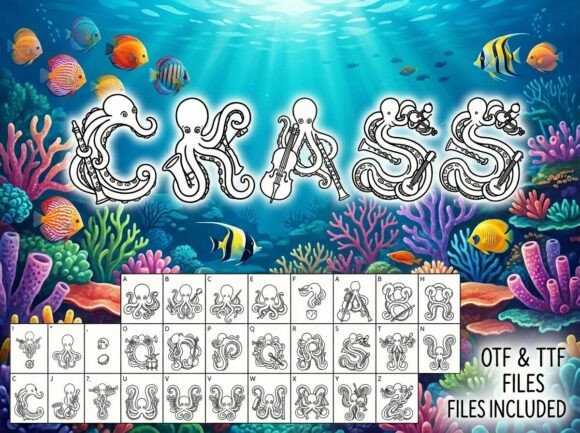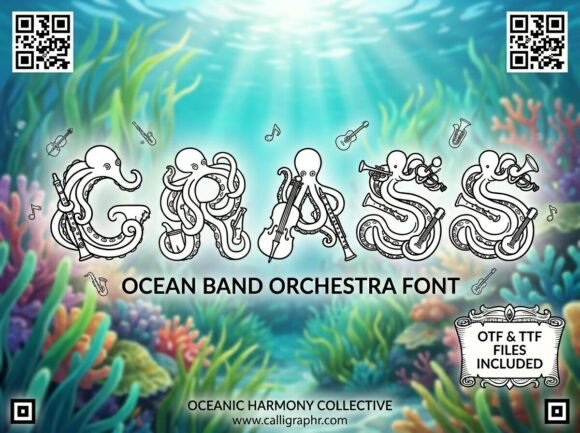
Conduct a Symphony of the Sea with Grass: The Whimsical Display Typeface
Imagine a font that combines the elegance of a musical symphony with the playfulness of a underwater world. Look no further than Grass, a bold and whimsical display typeface that captures the essence of a “musical-and-multitasking” soul. This unique font features hollow letterforms intricately integrated with hand-drawn octopuses, each “playing” a different orchestral instrument within the counters of each character.
The Inspiration Behind Grass
The creative minds behind Grass drew inspiration from the ocean’s rhythmic movements and the world of music. By combining these two seemingly disparate elements, they crafted a font that is both visually striking and full of personality. The result is a typeface that is perfect for designs that require a touch of whimsy and a dash of sophistication.
Design Features of Grass
Grass boasts a range of design features that set it apart from other fonts. The bold, hollow letterforms provide a clean and modern base, while the hand-drawn octopuses add a playful and illustrative touch. Each character features a unique octopus “playing” a different instrument, from cellos and flutes to trumpets, within the counters of the letters. This attention to detail and commitment to creativity make Grass a standout font for any design project.
Perfect for Aquatic-Themed Designs
Grass is the perfect choice for independent aquarium branding, thanks to its aquatic theme and playful personality. The font’s bold and eye-catching design makes it ideal for signage, logos, and marketing materials that require a strong visual impact. Additionally, Grass is well-suited for creative music school logos, children’s aquatic-themed stationery, and high-impact social media headers.
Use Cases for Grass
The versatility of Grass makes it suitable for a wide range of design projects, including:
- Independent aquarium branding: Grass is a bold and eye-catching font that can help your aquarium stand out from the crowd.
- Creative music school logos: The musical elements of Grass make it a natural fit for music schools and music-related businesses.
- Children’s aquatic-themed stationery: The playful and whimsical design of Grass makes it perfect for kids’ stationery and educational materials.
- High-impact social media headers: Grass is a great choice for social media headers that require a bold and attention-grabbing design.
Tips for Using Grass Effectively
To get the most out of Grass, here are a few tips to keep in mind:
- Use Grass as a display font: Due to its bold and illustrative design, Grass is best used as a display font for headlines and titles.
- Pair with a simple font: To avoid visual overload, pair Grass with a simple and clean font for body text.
- Experiment with colors: Grass looks great in a range of colors, so don’t be afraid to experiment and find the perfect hue for your design.
Grass is a unique and captivating font that is sure to make a splash in any design project. Its bold and whimsical design, combined with its musical and aquatic themes, make it the perfect choice for designers and crafters looking to add a touch of personality to their work. Whether you’re creating a logo for an aquarium, a music school, or simply a social media header, Grass is the premier choice for a “rhythmic-and-reef-ready” design.